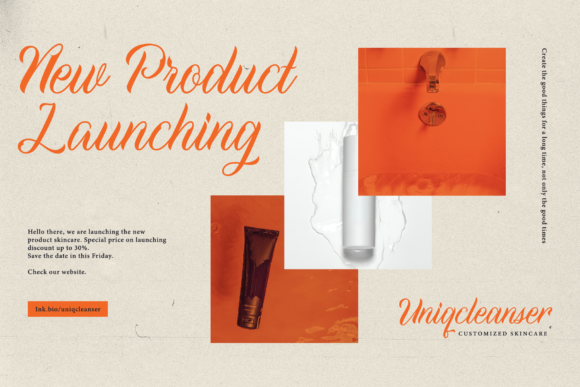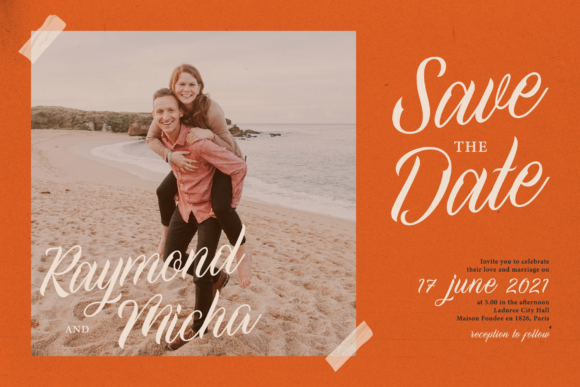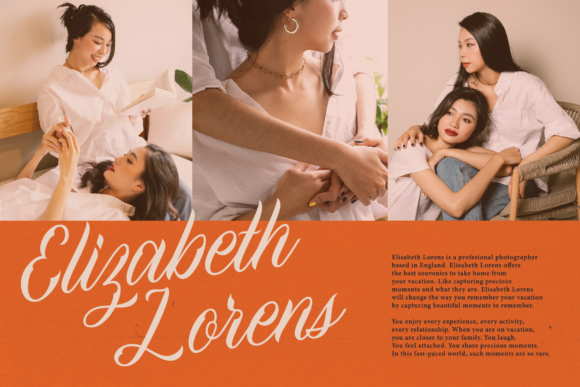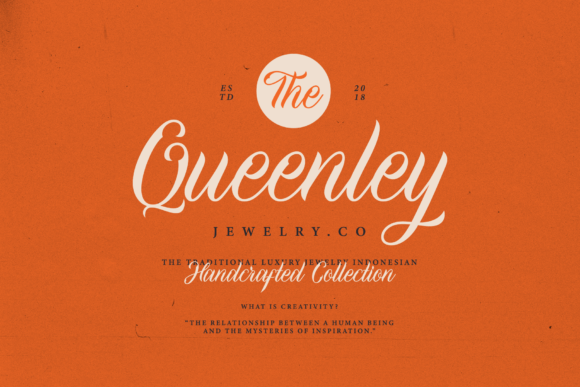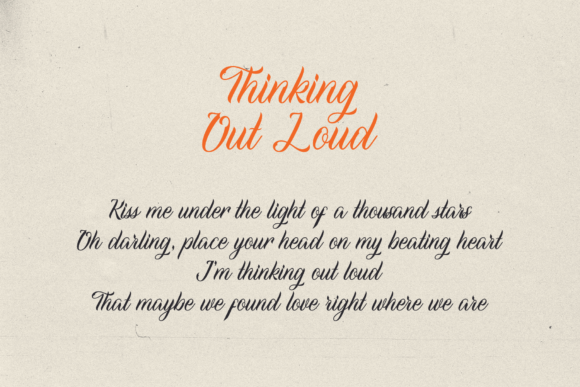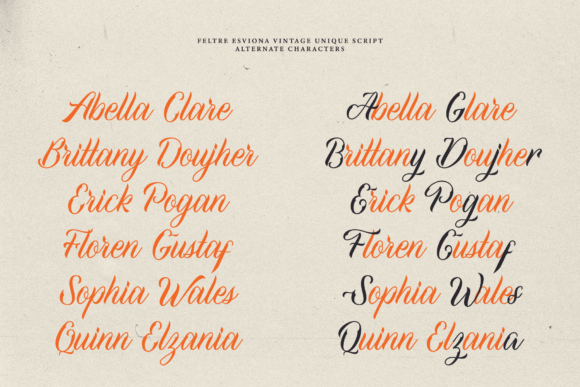
Introducing Feltre Esviona Font: Elevate Your Designs with Elegance and Sophistication
In the world of typography, few fonts manage to strike a balance between elegance and readability. Feltre Esviona, a beautifully crafted script font, is one such gem that has been making waves in the design community. With its fluid strokes, refined lines, and classic appeal, Feltre Esviona is the perfect addition to any design project that calls for a touch of sophistication and personal warmth.
The Essence of Feltre Esviona
Feltre Esviona is a well-balanced and elegant script font that exudes a sense of luxury and refinement. Its design is characterized by smooth curves, subtle variations in line width, and a flowing script style that gives it a dynamic yet harmonious look. This font is meticulously crafted to bring a touch of elegance and personality to a wide range of design projects.
One of the standout features of Feltre Esviona is its incredible versatility. Whether you’re working on wedding invitations, thank you cards, quotes, greeting cards, logos, or business cards, this font seamlessly adapts to any design need. Its handwritten touch adds a layer of warmth and personalization that digital and serif fonts often can’t match.
Wedding and Event Invitations
Feltre Esviona shines in wedding and event invitations, bringing a romantic and sophisticated flair that’s sure to impress. Its elegant script makes it perfect for formal and semi-formal events, setting the tone for a memorable celebration.
Branding and Logos
For businesses looking to establish a brand identity that’s both luxurious and approachable, Feltre Esviona offers a unique solution. Its distinctive style can help brands stand out in a crowded market, conveying a sense of quality and attention to detail.
Stationery and Greeting Cards
Adding a personal touch to stationery and greeting cards is effortless with Feltre Esviona. The font’s elegance and charm make it suitable for various occasions, from thank you notes to holiday greetings, ensuring your message is conveyed with style and grace.
Why Choose Feltre Esviona?
There are several reasons why designers and crafters are falling in love with Feltre Esviona:
• Elegant and Refined: Feltre Esviona brings a level of sophistication to any design, making it perfect for projects that require a touch of class.
• Highly Versatile: From digital applications to print materials, Feltre Esviona adapts beautifully across various mediums.
• Easy to Read: Despite its script nature, Feltre Esviona maintains excellent readability, ensuring your message is conveyed clearly and effectively.
• Unique and Distinctive: In a sea of generic fonts, Feltre Esviona offers a unique aesthetic that can help your designs stand out.
Tips for Using Feltre Esviona
To make the most of Feltre Esviona, consider the following tips:
• Pair with Complementary Fonts: For maximum impact, pair Feltre Esviona with clean sans serifs or classic serifs to create a striking contrast.
• Experiment with Colors: While Feltre Esviona looks stunning in black, don’t be afraid to experiment with colors that match your brand or design theme.
• Adjust Letter Spacing: For optimal readability, adjust the letter spacing according to the size and application of the font.
Feltre Esviona is more than just a font; it’s a design element that can elevate your projects with its elegance, versatility, and charm. Whether you’re a professional designer or a crafting enthusiast, adding Feltre Esviona to your toolkit can open up new creative possibilities. So, why settle for ordinary when you can make your designs extraordinary with Feltre Esviona?
Embark on a creative journey with Feltre Esviona and discover how this beautiful script font can transform your designs into stunning works of art.